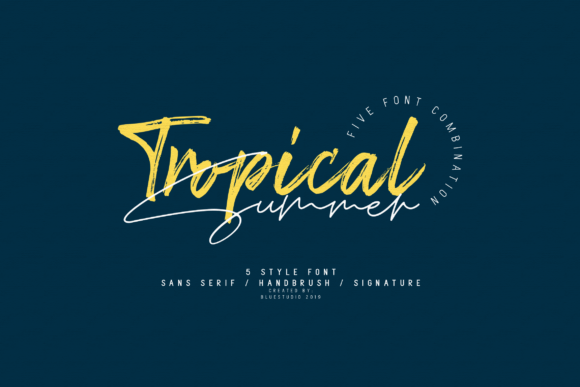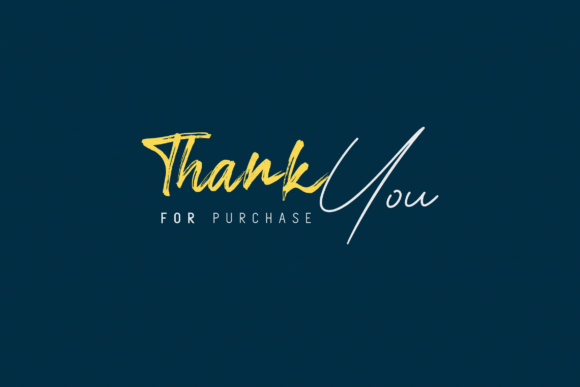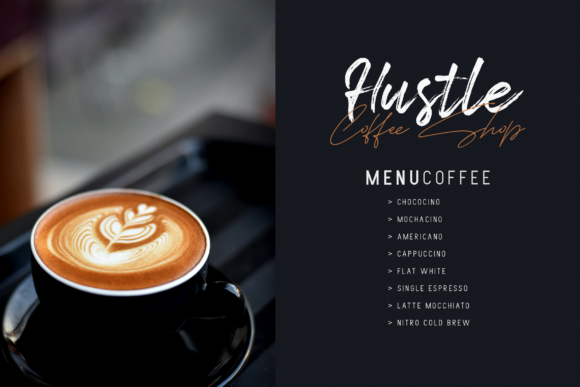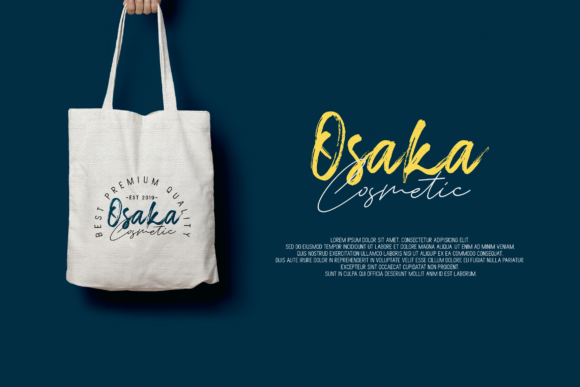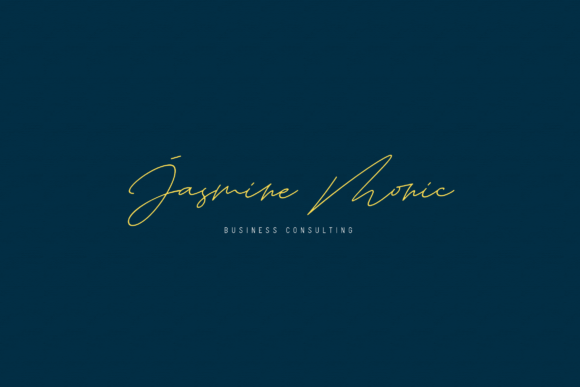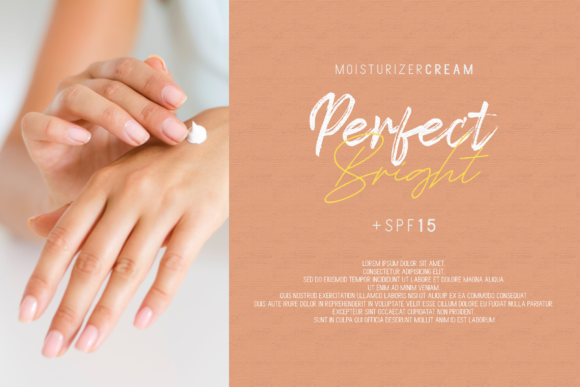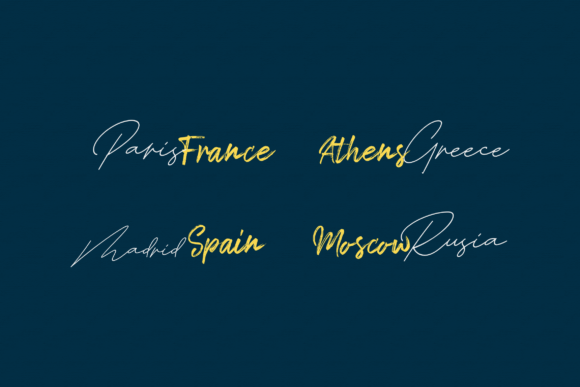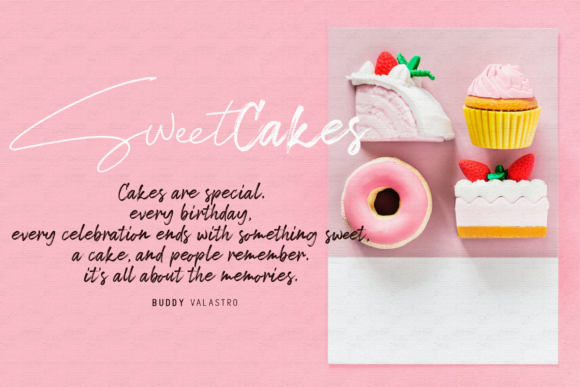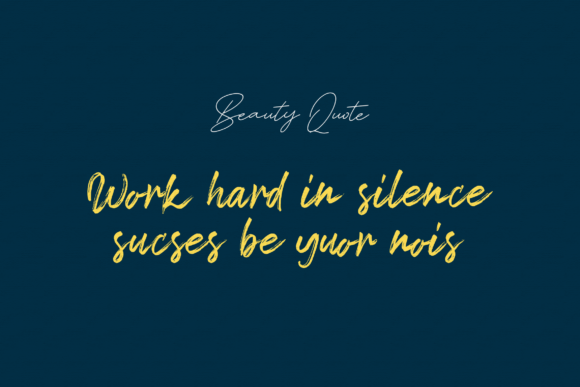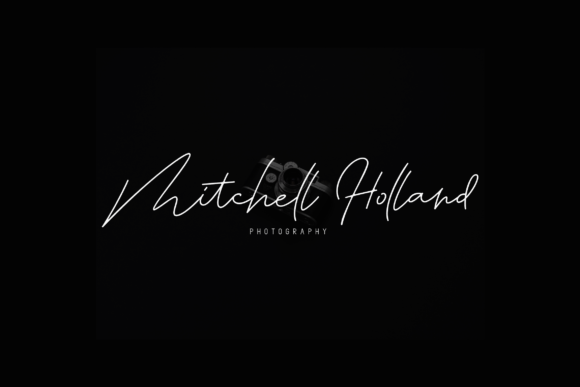
Tropical Summer Font
About Tropical Summer Font
Tropical Summer is the perfect collection of fonts for any design project that requires a light and charming feel. Use it to turn any design project into a true standout!